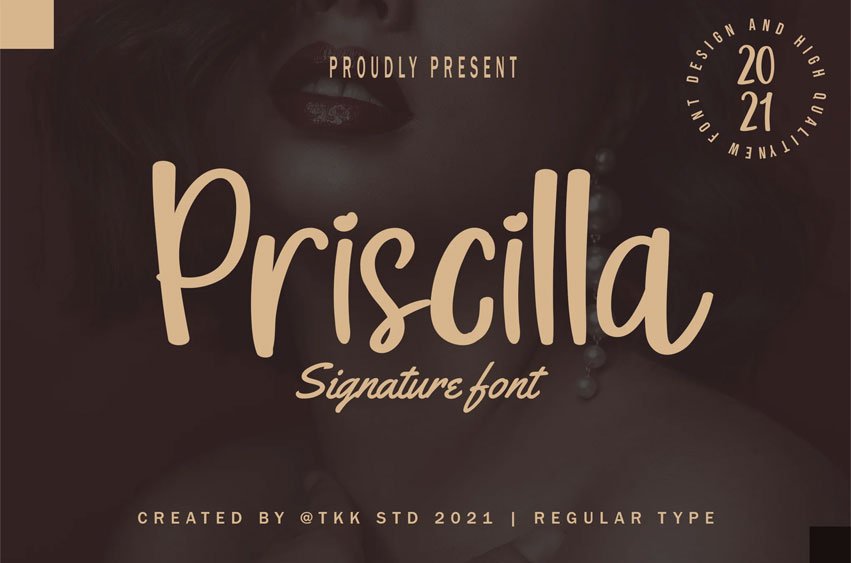
Priscilla Signature Font
Priscilla Signature Font script font brings a long-tail keyword blend of “modern calligraphy font for branding” and “soft feminine energy.” Designed with gently flowing curves and a natural handwritten rhythm, Priscilla radiates warmth and personal touch. Its bouncy baseline and fluid strokes feel expressive yet refined—ideal for creative professionals seeking personality and grace in their visual identity. Whether it’s styled on a wedding invite or a fashion blog logo, this font’s stylish yet approachable vibe adapts with grace.
Priscilla is ideal for visual storytelling where elegance and personality matter—think branding suites, boutique packaging, blog headers, or social media visuals. It captivates attention without overpowering, delivering emotional resonance with a light touch. Designers looking to craft memorable, intimate visuals will love how effortlessly it blends into editorial layouts or personal brands.
Key Features :
• Elegant and expressive style with fluid hand-drawn curves
• Balanced proportions for clean, legible use at multiple sizes
• Suits lifestyle branding, Instagram stories, business cards, and logos
• Feminine yet modern tone perfect for editorial or fashion-forward design
• Basic latin A-Z and a-z
• Numbers
• Punctuation
• PUA Encoded Characters